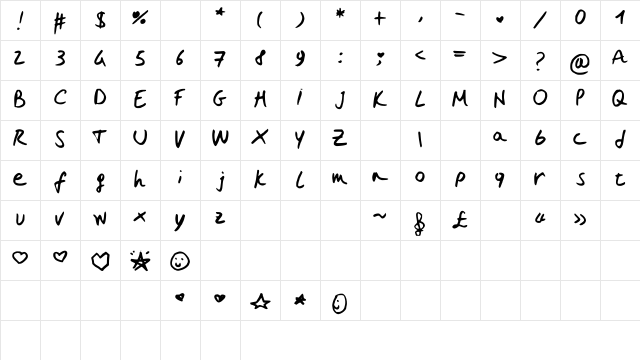
EbrinnasCandy Medium
Design Context for EbrinnasCandy
EbrinnasCandy is a composed and adaptable typeface that performs quietly and consistently across a wide range of design contexts.
Pro Tip: Use EbrinnasCandy in both headline and body roles to test its range before committing to a single application.